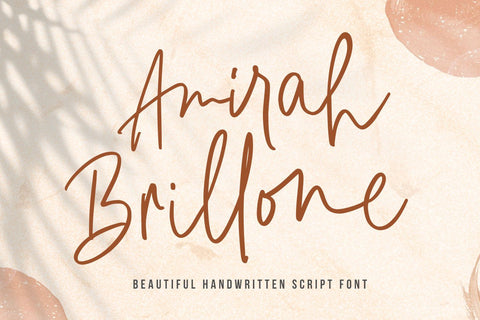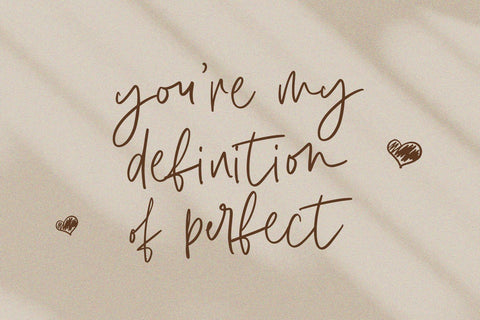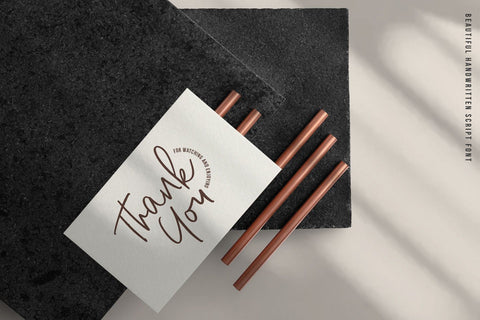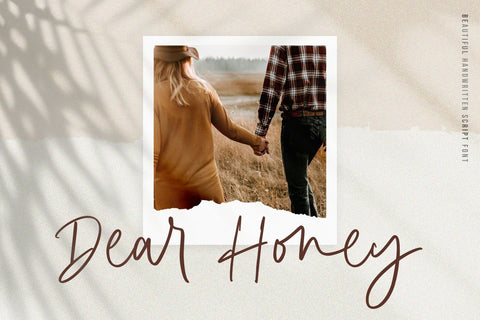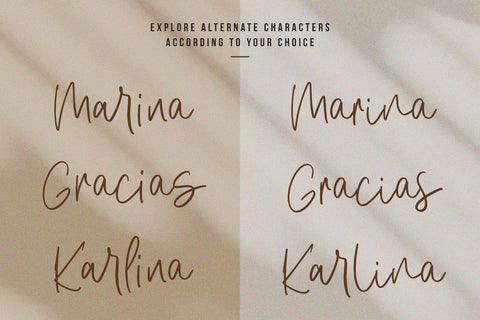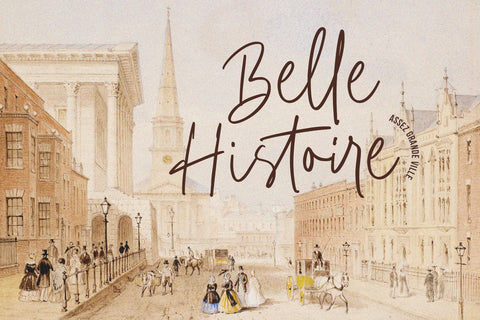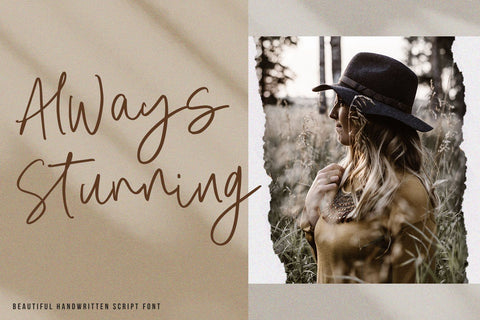
Amirah Brillone Signature Font
Amirah Brillone is a handwritten signature script with a natural & stylish flow. This font has a multitude of natural-looking ligatures in its OpenType features - making the font look as close to natural handwriting as possible. This collection of scripts is perfect for branding.
Amirah Brillone Font is perfect for many different projects such as logos & branding, invitation, stationery, wedding designs, social media posts, advertisements, product packaging, product designs, label, photography, watermark, special events or anything.